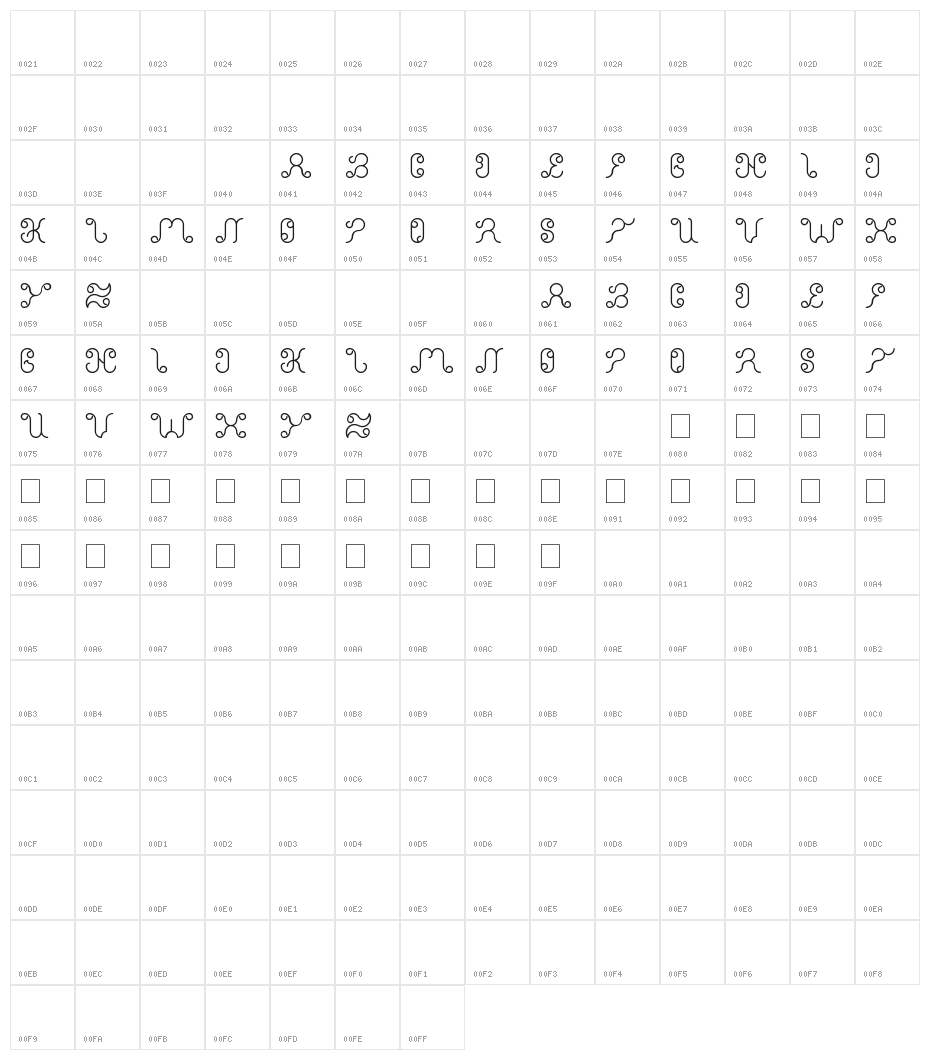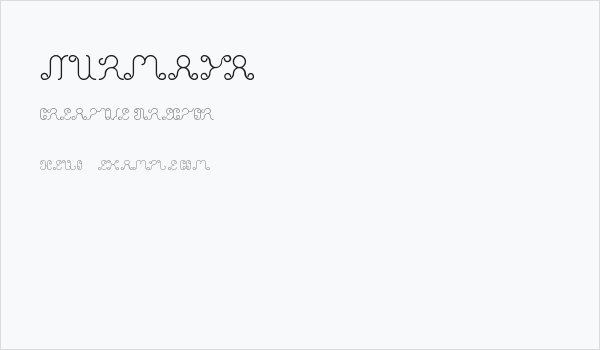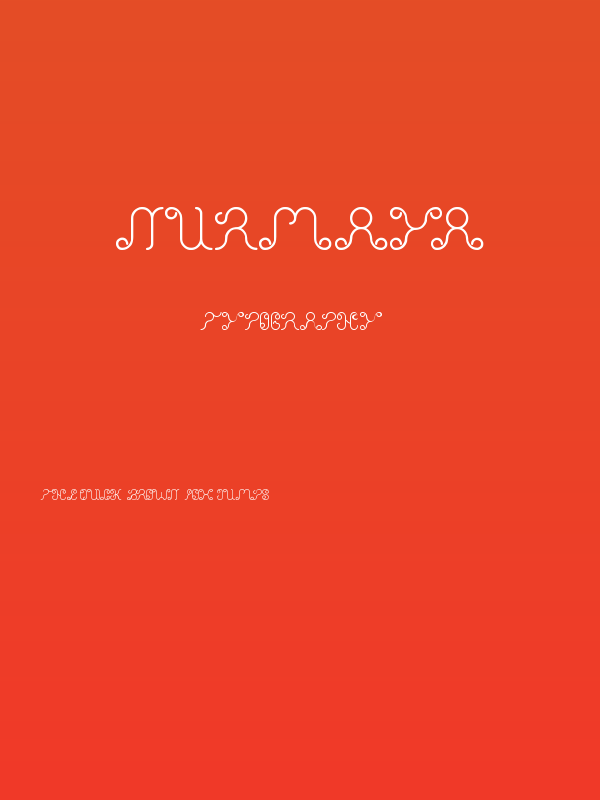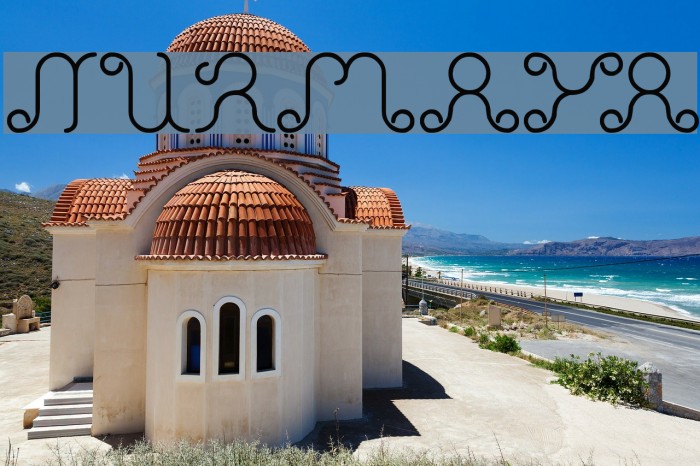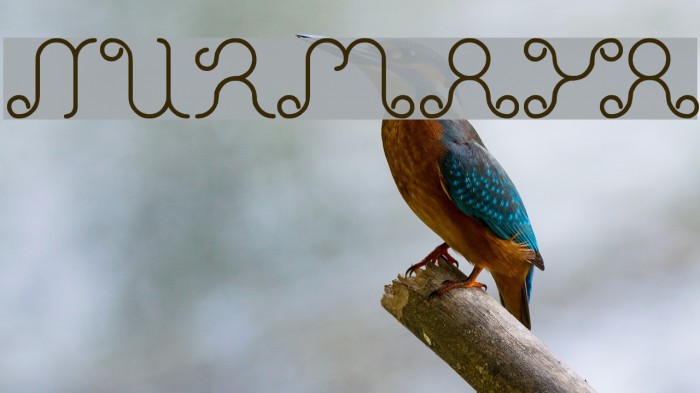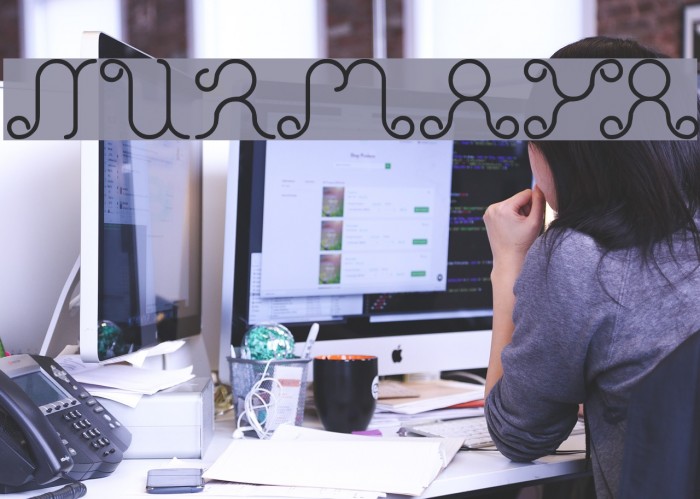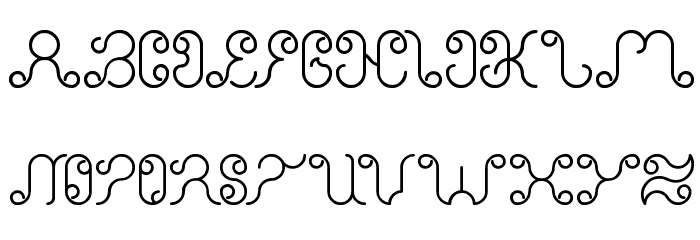
Nurmaya Font
Nurmaya Description
This font features an intricate and decorative design with elaborate curls and loops that give it a whimsical and artistic appearance. The characters are uniquely crafted with consistent swirling elements that create a sense of movement and elegance. Each letter is distinct yet harmoniously fits within the overall style, making it visually captivating. The font's playful and ornate nature makes it stand out, ideal for creative and expressive projects. Its design is both modern and reminiscent of vintage calligraphy, offering a blend of tradition and contemporary flair.
| Proposed Projects | Ideal for invitations, greeting cards, artistic posters, branding for creative businesses, and decorative headings. |